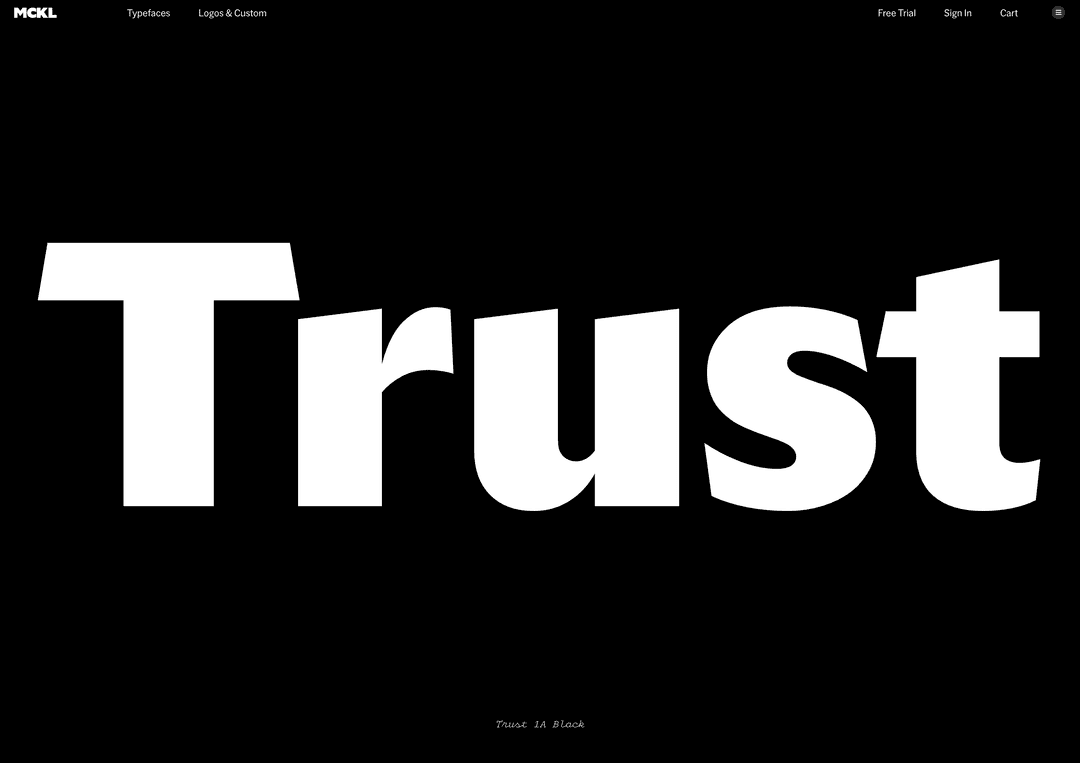
Trust the Process: The design journey of creating Trust, a typeface inspired by lettering on US coins and the rich history of pre-digital typefaces.
Above: Trust was inspired by lettering on the Bicentennial Dollar (1975), designed by Dennis R. Williams, and Washington Quarter (1931-1998), designed by John Flanagan.
Trust is a collection of display typefaces comprising 144 styles across 9 families. The fonts are organized along a continuum of sans to serif, low to high contrast, and light to black weights, in roman and italic styles.
Trust functions as a survey of 20th century typography through a largely American filter of 1960s and 70s phototype. The original inspiration comes from US coin designs, and is also influenced by a multitude of typefaces from the pre-digital era. In different corners of its design space, Trust evokes classics including Friz Quadrata, Albertus, Serif Gothic, Kabel, Tempo, and Optima, and can even conjure Broadway or ITC Americana in the extreme styles. The unifying motif of Trust is the sharp diagonal shape of characters like AMNVW, a concept which comes from the reference coins, displayed on the reverse side in “UNITED STATES OF AMERICA.”
The story of Trust is a long one, stretching back over 15 years ago to the beginning of my career as a type designer. My first typeface, Router, was inspired by lettering found in the NYC subway on an informational sign carved into plastic. Suddenly, type was all around me and I began searching for new ideas everywhere.
Not long after I started drawing I picked up a souvenir coin that had been flattened through a penny press. I noticed the ghost lettering from the original coin and started to wonder about the origins of its design. Could US coin typography serve as source material for a new typeface idea? I went on a deep dive of internet resources (as available in 2007), downloading a trove of images and organizing the results.
Coins have a special significance for me. My father and maternal grandfather both collected coins, and I still have a commemorative coin set from my birth year. Several coins from that set have unique reverse sides to celebrate America’s Bicentennial (1976). The Eisenhower dollar is especially striking, with the liberty bell and moon on the reverse and wacky sans serif lettering along the perimeter. Years later, I learned there was an extra layer of intrigue to this coin — there had been two versions of the back, one in sans and another in a more traditional serif.
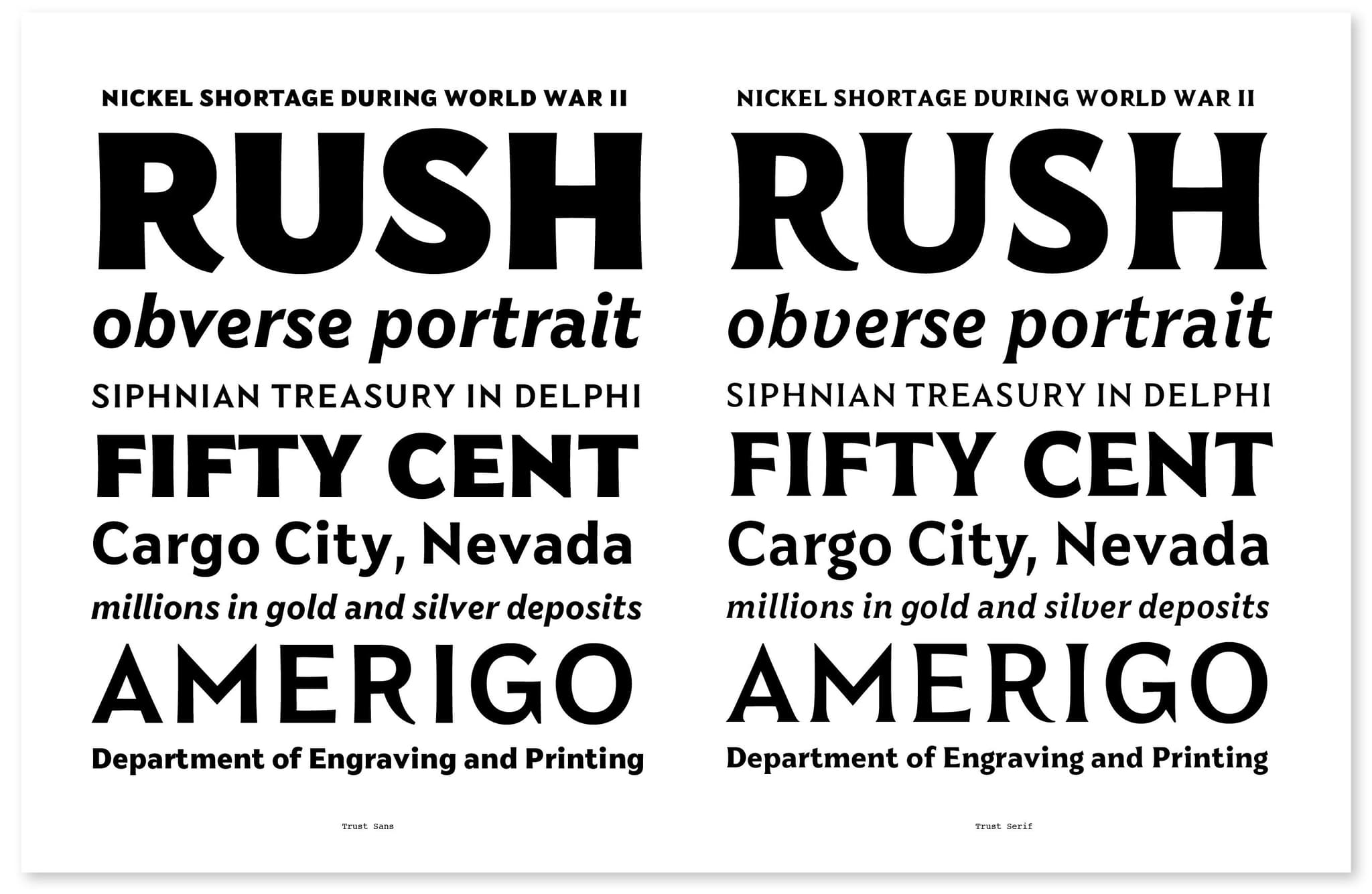
I started sketching capitals inspired by my favorite images from the coin research, focused specifically on the 1976 dollar and the 1931-1998 quarter. There were stylistic similarities between the two coins, especially the sharp diagonals in AMN and the idiosyncratic tails on R. An opportunity to release an early version of Trust emerged, but in the end, I held off. The kernel of the idea was there, but the drawing just wasn’t ready.
Over the next decade, I kept coming back to Trust, trying to figure out how to make it work. By 2019 I had a small team, and we reviewed all of the drafts from over the years and sketched new ideas as well. Finally, something clicked and I was able to combine elements of the coins with other references to create something new.
Trust is a synthesis of the coin lettering and classic typefaces from the phototype period as well as other references like 70s book covers, horror movie posters, national park signage, and other ideas of Americana.
Along the way, a couple of my favorite clients requested versions of Trust, which helped advance the design. Pentagram used the fonts for the infamous 2020 Presidential Debates, Public Address and commissioned a custom version for their MGM Brand Identity (as seen in “ARS GRATIA ARTIS” and “TRADE MARK” in the iconic lion-roaring logo sequence).
Finishing any typeface can take a long time, and there were two breakthroughs relatively late in the creative process which finally brought the design over the finish line. First, I drafted a higher contrast version of the serif styles to further differentiate them from the sans. I immediately missed the low-contrast serif, but it made me realize that the system wanted to be bigger.
The addition of a contrast axis accessed a much wider range of typographic styles, making for a more flexible family that can be dressed up or down and combined to achieve many different voices.
And second, I always intended to include sharp alternates of the AMNVW characters as an homage to the coins that inspired me. I included more conventional flat forms of AMNVW as the default, thinking it would make the family more appropriate to a wider range of situations. With the addition of the contrast axis, I found that the conventional forms lacked a strong enough point of view to hold the entire family together. Trust needed a visual cue that would unite the styles, and the sharp diagonals were the perfect element.
I’ve always loved the name Trust for this typeface. It was originally in reference to “In God We Trust”, the motto of the United States that appears on all currency, as well as the concept of a financial trust. I also liked that it felt friendly, the idea of ‘trust’ as an emotional state between people.
We worked with Public Address and Dazzle on the marketing for Trust. Public Address came up with the concept for a coin and scratch off cards, and Dazzle helped with additional social media content. Tommie Geraendts animated a 3D coin that celebrates the design of the typeface.
Trust, designed by Jeremy Mickel, 2009-2023.